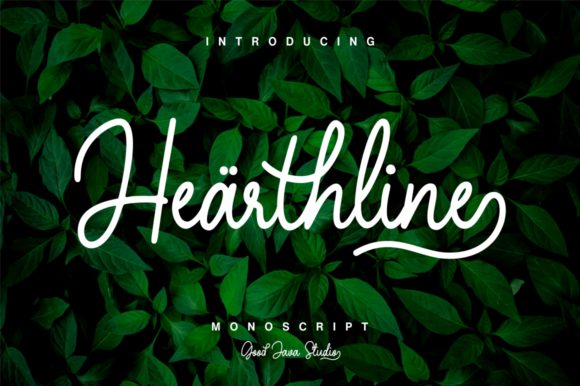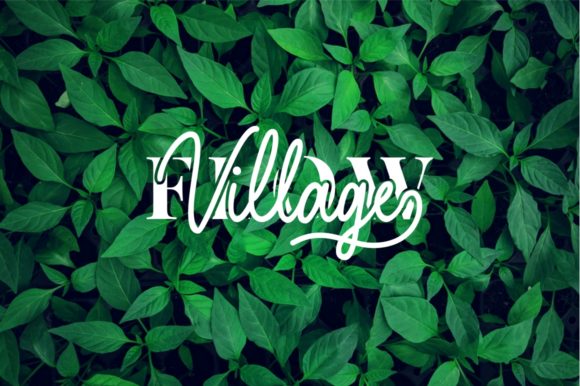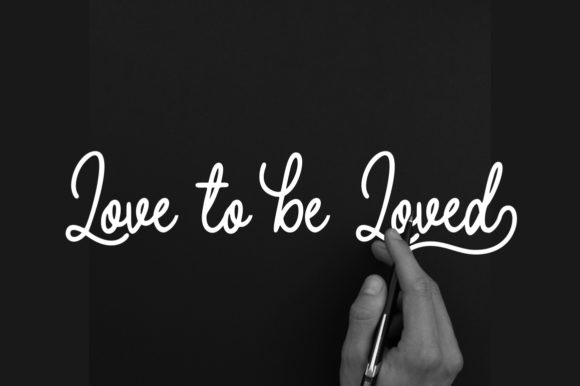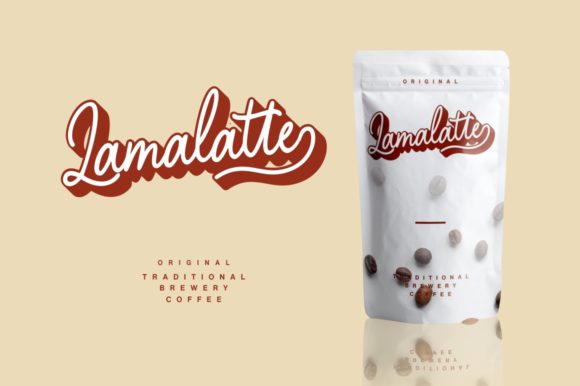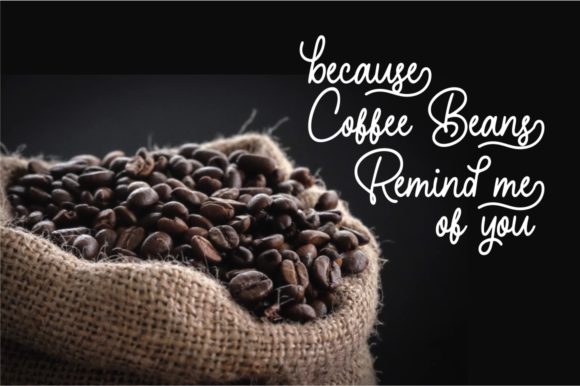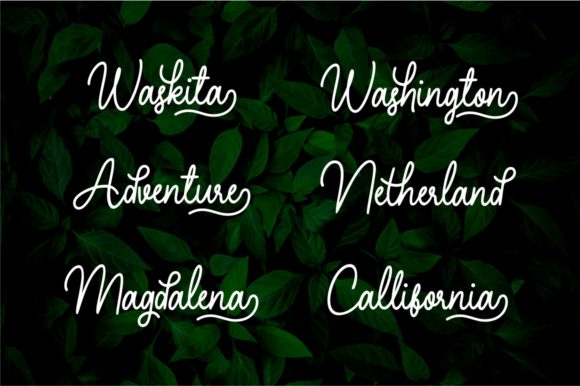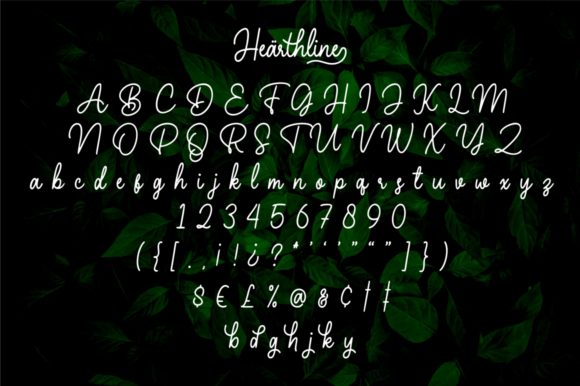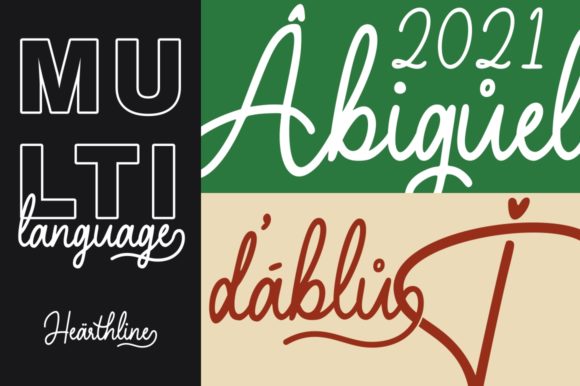
HomeScript FontsHearthline Font Script Fonts Hearthline Font FacebookXPinterestWhatsApp Hearthline Font Poster 2 Hearthline Font Poster 3 Hearthline Font Poster 4 Hearthline Font Poster 5 Hearthline Font Poster 6 Hearthline Font Poster 7 Hearthline Font Poster 8 About Hearthline Font Hearthline is a casual, yet elegant script font with a unique style. Get inspired by its contemporary charm! DOWNLOAD ON CREATIVE FABRICAThis font is sold and delivered by Creative Fabrica. Font Canyon may earn a commission if you buy through this link. People also explored Mima Font Bubashy Font Neon Zeho Font Woirles Font New Mexico Font Retquizer Font Catloekeys Font Amore Font Aulabec Font 406 0 TagsHearthline Font Previous articleVelomo FontNext articleBugenfly Font LEAVE A REPLY Cancel reply Comment: Please enter your comment! Name:* Please enter your name here Email:* You have entered an incorrect email address! Please enter your email address here Website: Save my name, email, and website in this browser for the next time I comment. Personal Use Free Pridaem Cooper Personal Use Free Read more about this font Baby Cute Personal Use Free Read more about this font Roland Personal Use Free Read more about this font Rise of Kingdom Personal Use Free Read more about this font BLOG How to Cut Any Font on Cricut: Convert a Font to SVG (Free) Turn any font into a clean SVG so it cuts crisp on Cricut - a quick 3-step workflow using a free font-to-SVG tool. Modern Sans-Serif Fonts That Brands Love in 2025 5 Fonts That Will Dominate Design Trends in 2026 Where to Buy American Fonts Online in 2024